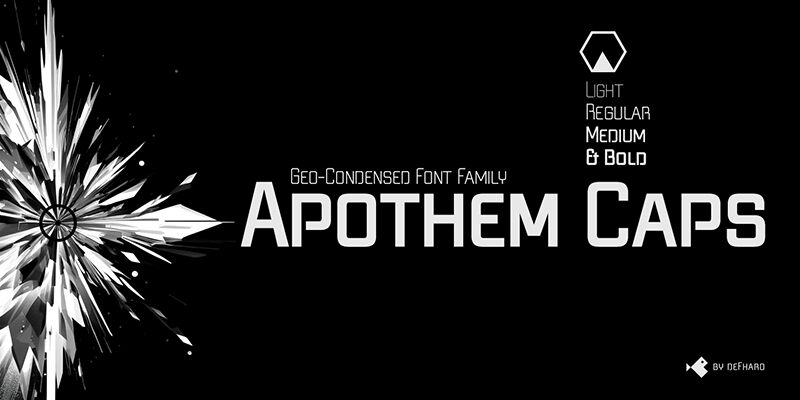
Apothem Caps Medium font by Fernando Haro is a geometric, modern sans serif typeface that combines futuristic minimalistic elements. With its clean lines and high readability, it suits a wide range of contemporary applications. The font style is characterized by a professional appearance that feels familiar and reliable along with distinctive details from the characters themselves.
Apothem Caps is a very versatile condensed typeface, is available in four carefully designed weights: Light, Regular, Medium and Bold with three sets of drop caps: Caps, Small Caps and Petite Caps and alternate letters.